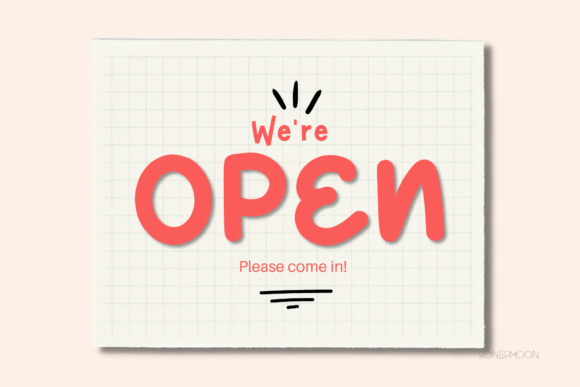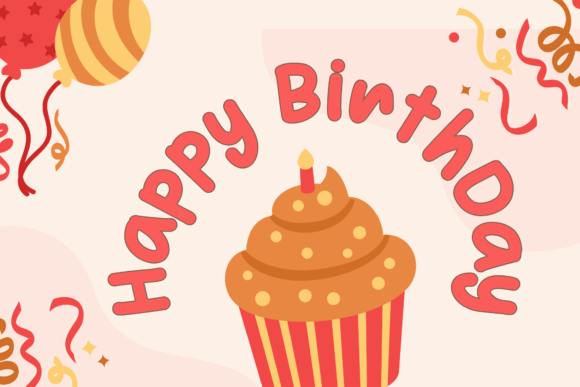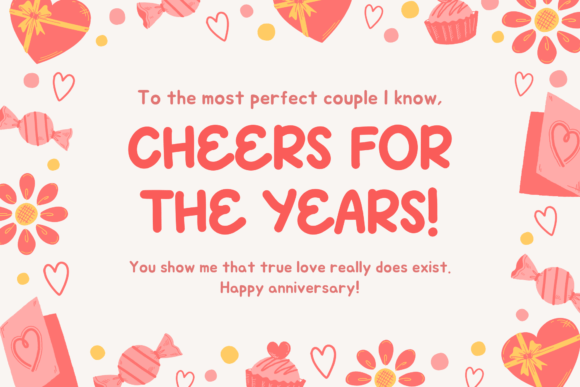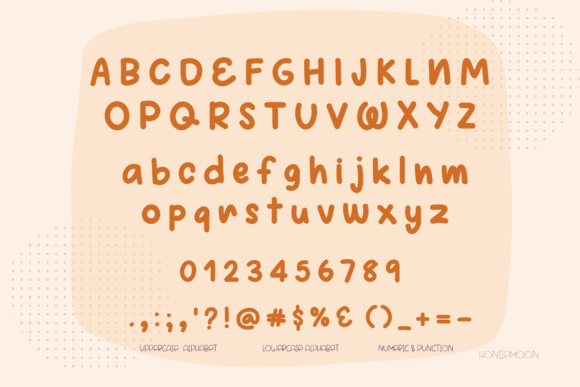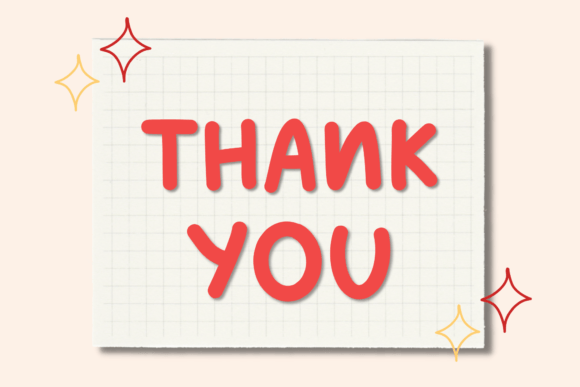
A Dash of Whimsy: The Allure of Cupcake Font
Who among us hasn’t found ourselves lost in the creative process, pouring over fonts and colors, trying to capture the perfect essence of a design? It’s a moment we’ve all experienced – the ‘aha’ moment when everything falls into place, and our project transforms from ordinary to extraordinary.
For designers seeking to infuse their creations with a touch of playfulness and charm, Cupcake Font is the perfect ally. This delightful handwritten font is designed to add a sprinkle of sweetness to your projects, making it ideal for greeting cards, invitations, and any other design that calls for a dash of whimsy. With its adorable and cute style, Cupcake Font is a valuable addition to any designer’s toolkit, offering endless possibilities for creative expression.
Cupcake Font Key Features
- Unique Characteristics: Cupcake Font features a unique, playful design with rounded edges and a soft, whimsical feel, making it perfect for bakery and food-related branding.
- Font Weight: The font is available in three weights: Light, Regular, and Bold, allowing designers to choose the perfect weight to match their design needs.
Cupcake Font Review
As a designer, I was excited to try out the Cupcake Font. ✨ First of all, I loved the playful and whimsical feel it brings to any design project. The font is perfect for bakeries, cafes, or any other business that wants to convey a sense of sweetness and indulgence. The font is also highly customizable, with a wide range of options for color, size, and style.
- Works well for:
- Bakery and cafe branding
- Food and dessert packaging
- Children’s products and marketing materials
- Customization options:
- Color: a wide range of pastel shades and bright colors
- Size: from tiny to extra-large
- Style: bold, italic, and underline options
However, there are a few limitations to the Cupcake Font that I want to mention. ⚠️ Firstly, the font can be a bit too playful for some projects, and may not be suitable for more serious or professional branding. Additionally, the font may not be as readable in smaller sizes or at a distance, which could be a problem for larger-scale designs.
Overall, I would say that the Cupcake Font is a fun and versatile addition to any designer’s toolkit. While it may not be the best choice for every project, it’s perfect for those that want to add a touch of whimsy and fun to their designs. With a little creativity and experimentation, I’m sure you’ll be able to make the most of this delightful font.
Tips for Getting the Most Out of Cupcake Font
To get the most out of Cupcake Font, consider the following tips:
1. Use Cupcake Font for titles, headings, and other emphasis.
2. Pair Cupcake Font with other playful fonts for a unique look.
3. Experiment with different font sizes and colors to create visual interest.
Common Use Cases for Cupcake Font
Cupcake Font is commonly used for:
1. Food and dessert branding.
2. Children’s party invitations and decorations.
3. Whimsical and playful designs.